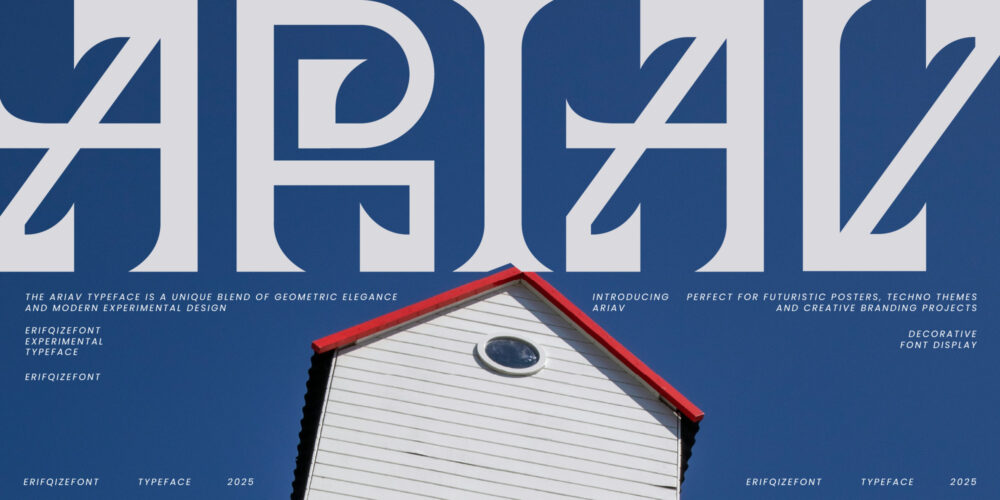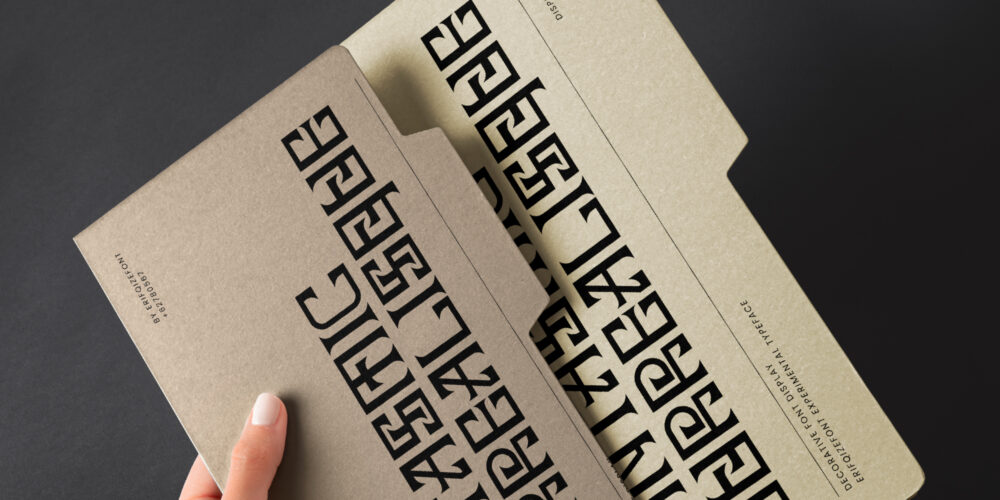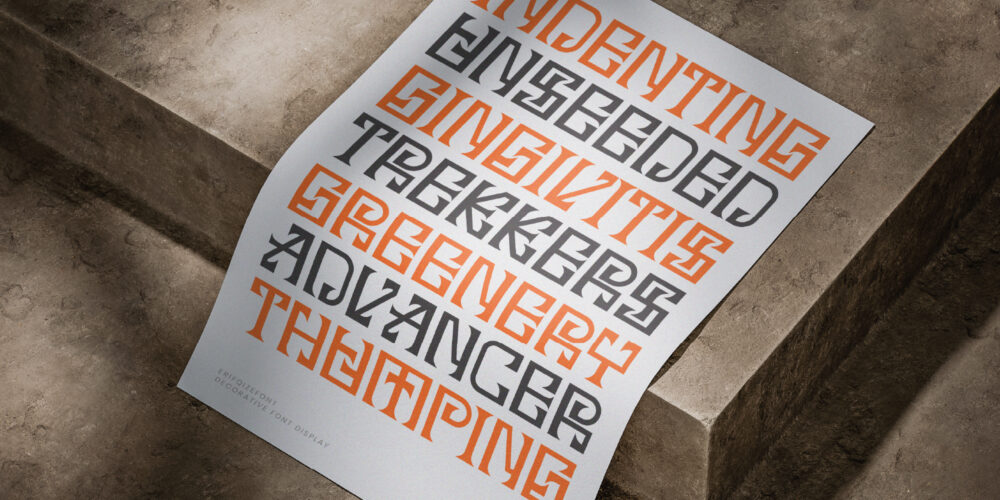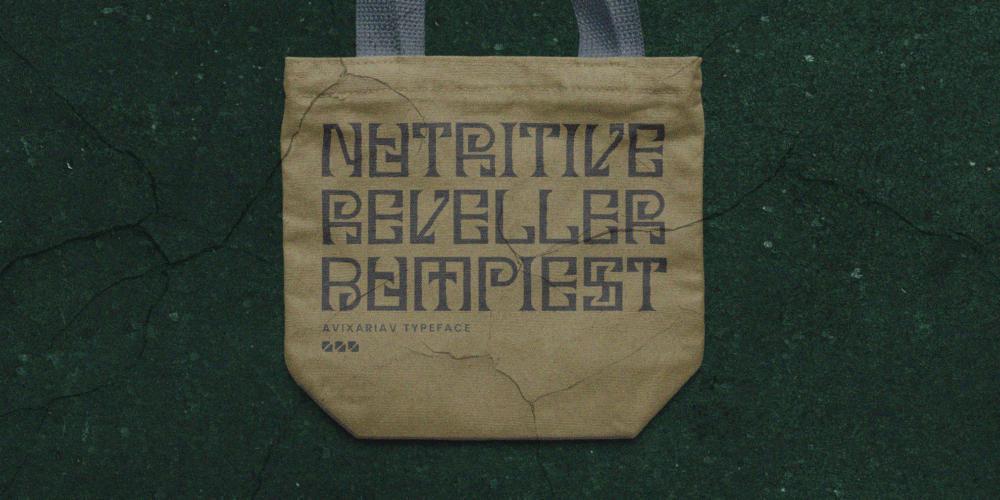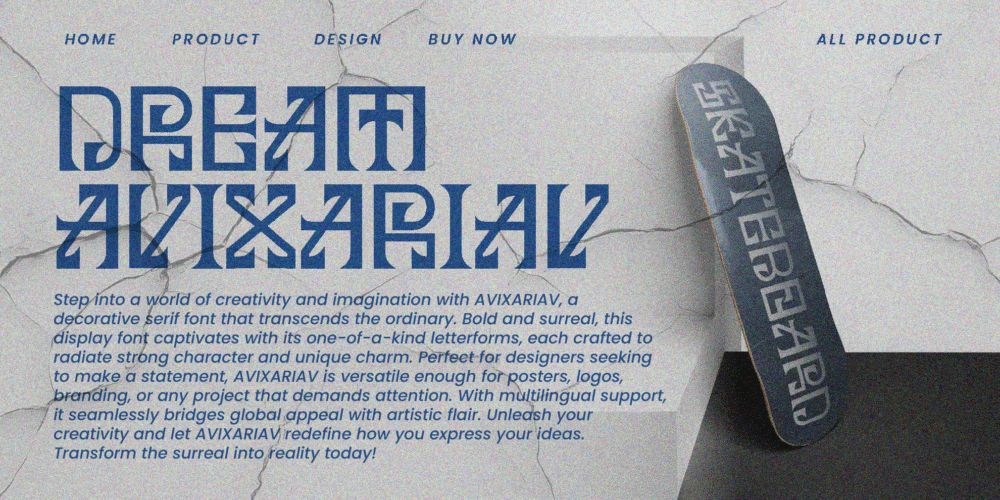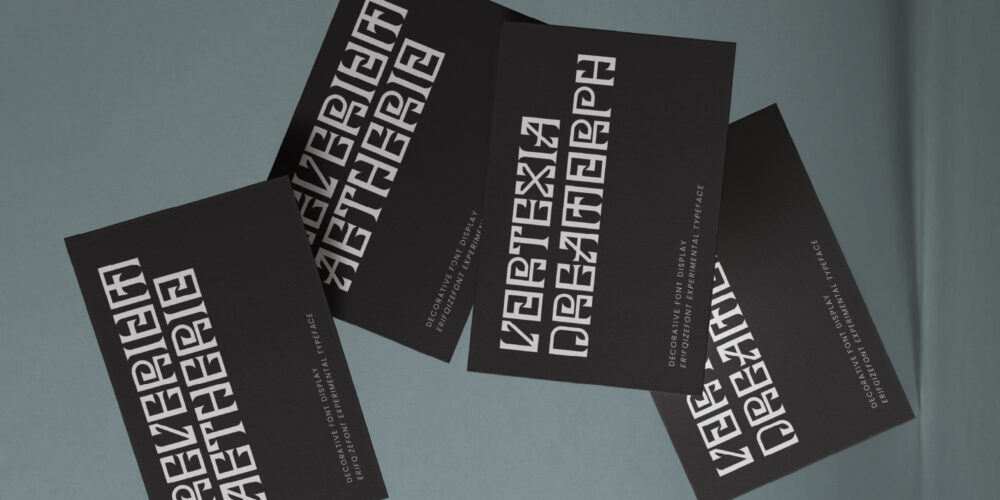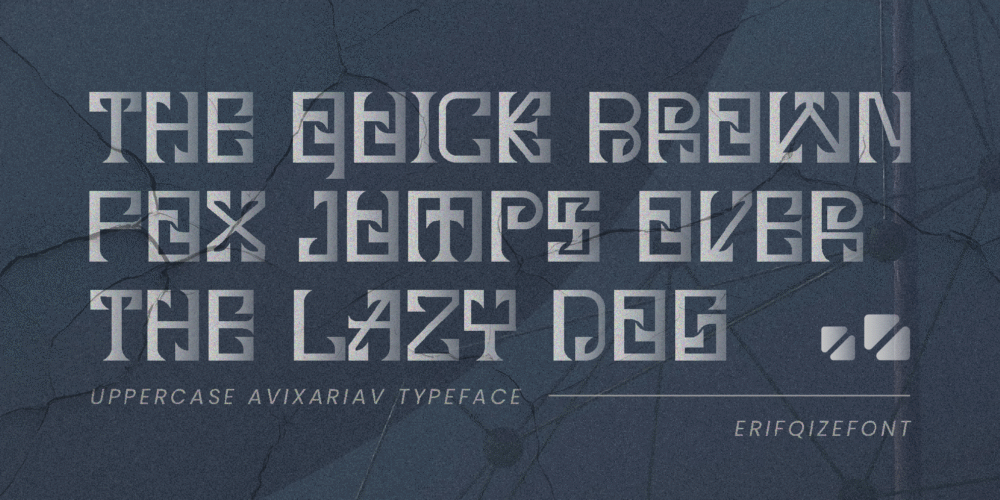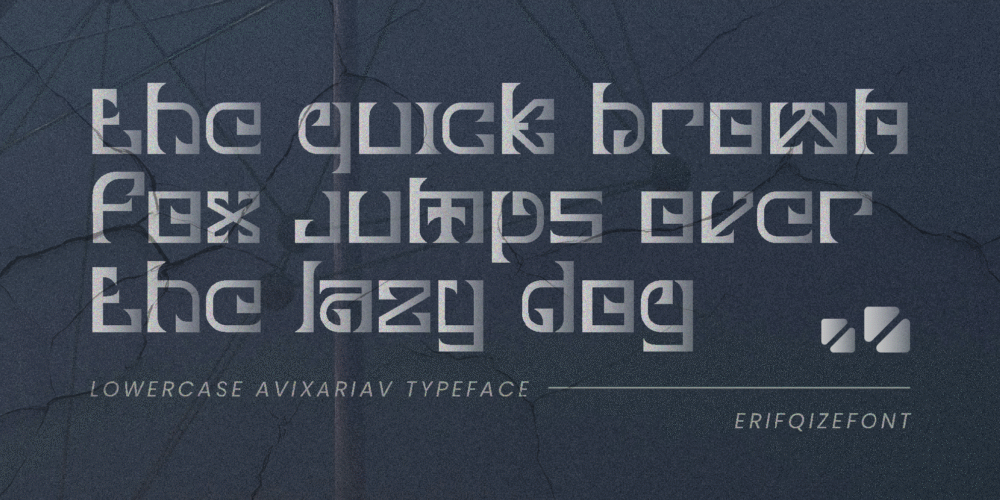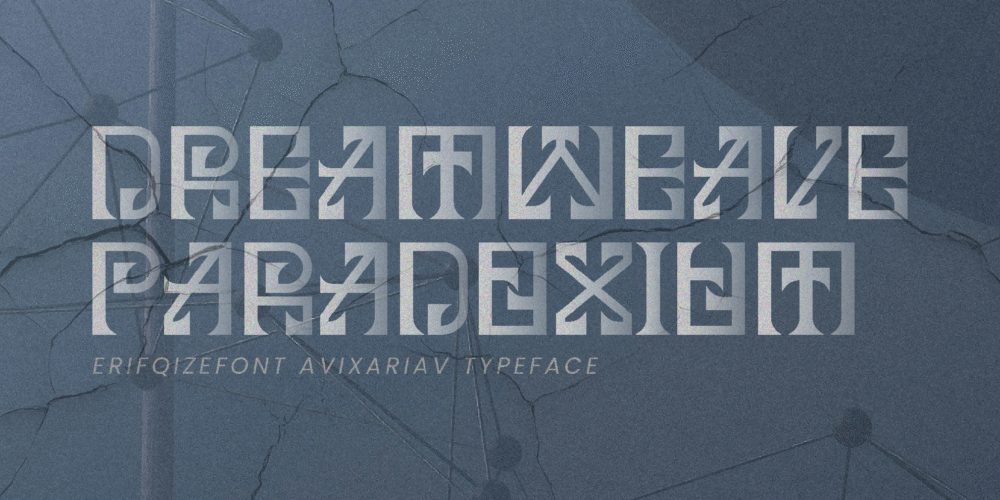
AVIXARIAV – Decorative Surreal Serif Font
Step into a world of bold expression with AVIXARIAV, a decorative serif display font that dares to be different. With surreal, sculptural letterforms and a strong visual presence, each character is uniquely crafted to convey individuality and artistic depth.
AVIXARIAV is the perfect choice for designers looking to make a powerful impression. Whether used for posters, logos, branding, album covers, or any creative display work, this font commands attention and invites curiosity.
Equipped with multilingual support, it merges distinctive style with global versatility—making it as functional as it is imaginative.
Unleash your vision and let AVIXARIAV transform the surreal into your creative reality.